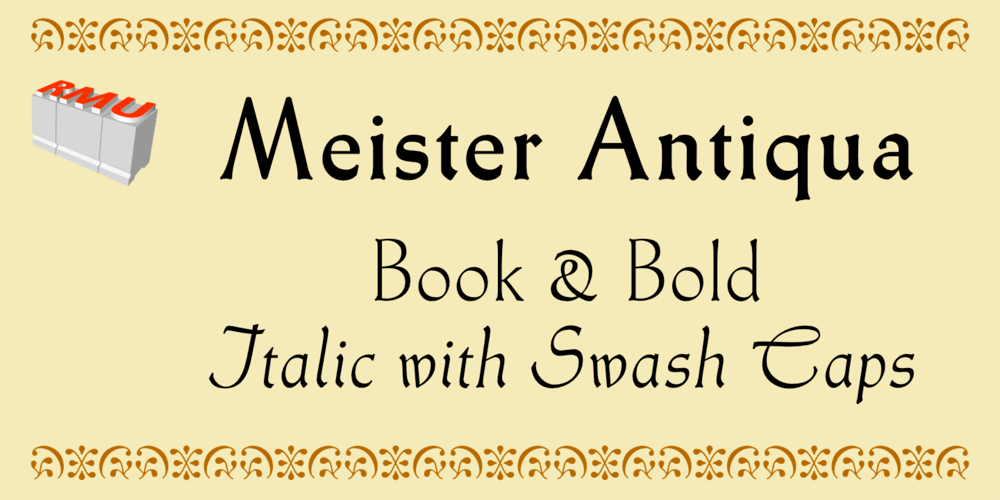
Meister Antiqua Font Family was designed by Ralph M. Unger and published by RMU. Meister Antiqua contains 3 styles and family package options. Voilà, the Meister Antiqua font family, which was originally released by Typoart, Dresden, circa 1951, is again available as a remastered, modernized and digitized version, with swash caps integrated in the Italics.